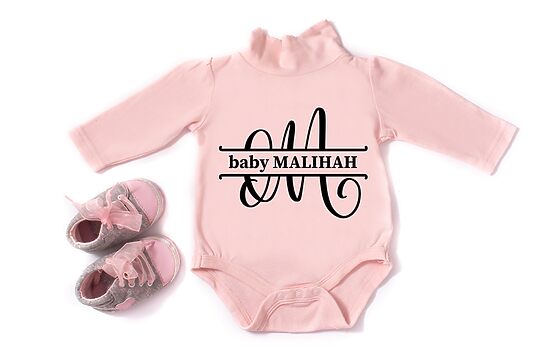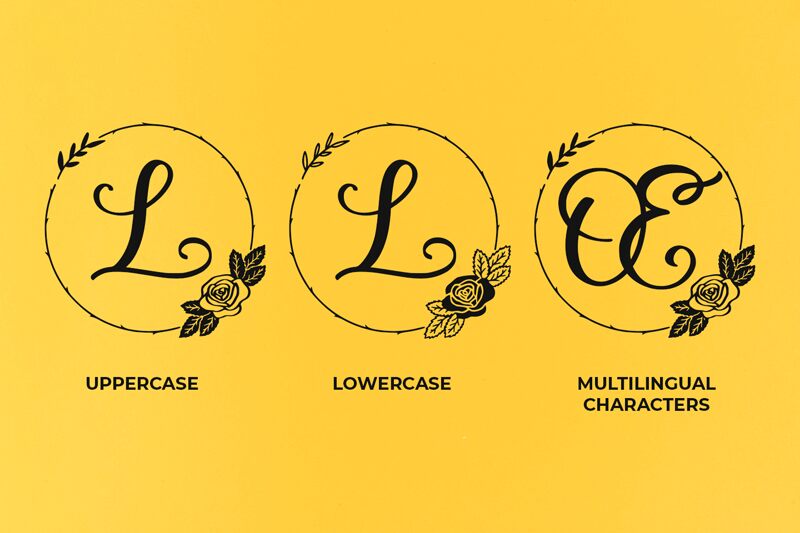
Rosegram font, by Abo Daniel Studio, captures the essence of romance and elegance with its vintage-inspired design. It reflects a look from the past which is combined with decorative flourishes and ornate, ornamental design. Using its smooth yet subtly sophisticated appeal, this beautiful font is given a charming calligraphic touch. Heavily inspired by classic typography, which can be felt in its natural and artistic character, Rosegram is fancy and poised for a more peaceful look.
Rosegram may be used to style logotypes, giving your brands a memorable and unique look. For designers, the font is to be applied in packaging projects, advertising, product design, and significantly more. Items that people see every day are enhanced and transfer this energy to your image when you use this font in banners, posters, social media posts, and webpages. It additionally works perfectly in branding, watermark, label, and magazine covers.